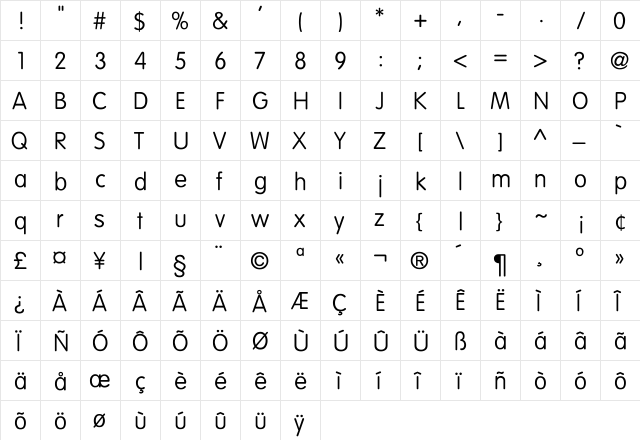
Nicoll Normal Regular Font Preview
Nicoll Normal Regular
Design Context for Nicoll Normal Typeface
Nicoll Normal offers clean, dependable letterforms without strong stylistic allegiance, making it a practical choice for designers who need flexibility.